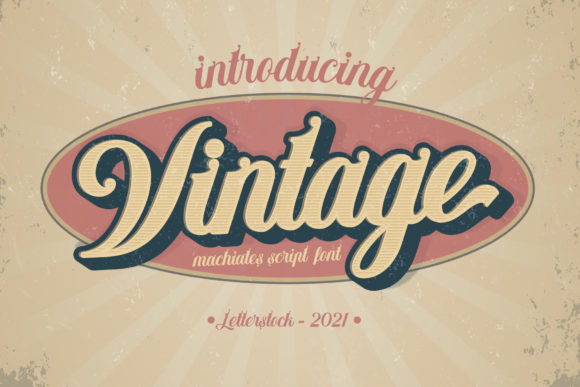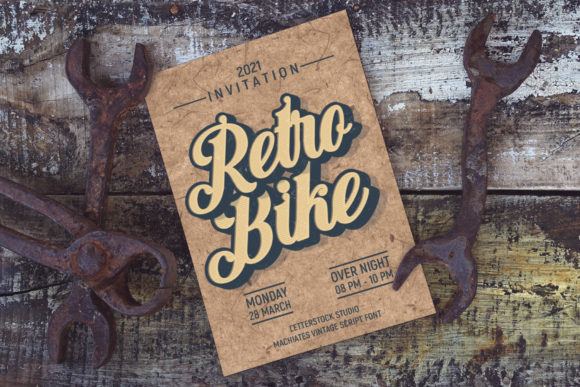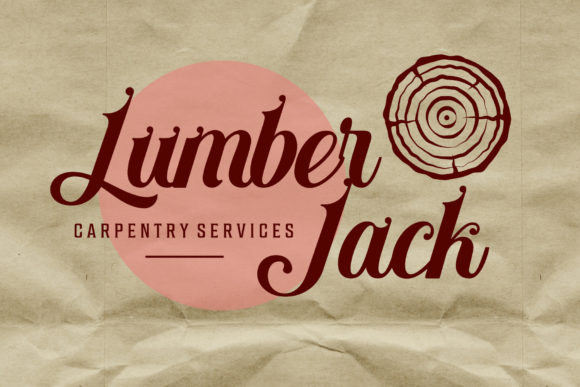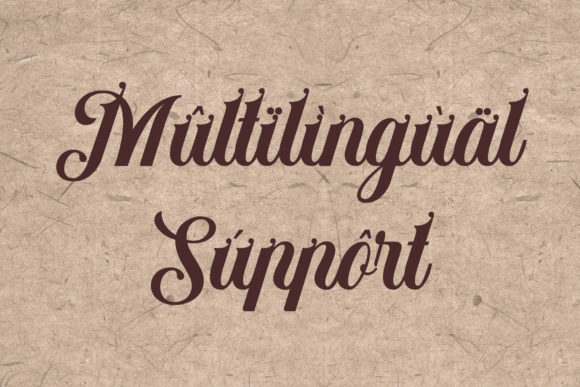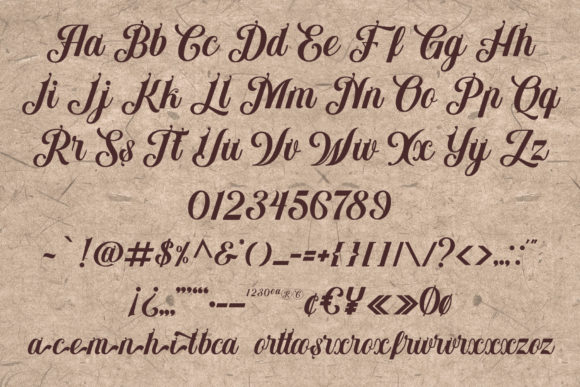
Introduction to Machiates Font
Have you ever been in the middle of a creative project, staring at a blank page, trying to find the perfect font to make your design stand out? It’s a moment we’ve all been there – searching high and low for that elusive combination of style, personality, and flair that sets our work apart.
Enter the Machiates Font, a stunning and bold handwritten font that’s sure to bring a touch of sophistication and nostalgia to your designs. With its high quality aesthetic and transparent background, this font is a game-changer for designers looking to elevate their creative projects.
Whether you’re working on a logo, a headline, or a marketing campaign, the Machiates Font is a valuable design resource that’s sure to add a dynamic touch to your work.
Key Features of Machiates Font
- High-quality font design with a unique, artistic style, perfect for creative projects and design resources.
- Includes a wide range of characters, including uppercase and lowercase letters, numbers, and punctuation marks, making it suitable for a variety of creative projects.
- Unique, hand-drawn style that sets it apart from other fonts, making it a great choice for designers looking for a distinctive design resource.
Honest Review: Machiates Font
Here are some things that work well with the Machiates Font:
- ✨ Elegant and modern design that’s perfect for creative projects
- ✨ Supports multiple languages, making it a versatile design resource
- ⚠️ Limited font sizes and styles, which may not be suitable for complex design projects
- ⚠️ Some users may find the font’s design too minimalist, which may not appeal to those who prefer bolder fonts
Overall, I’d say the Machiates Font is a solid addition to any designer’s toolkit. Its modern design and versatility make it a great choice for creative projects, and the free download is a major bonus. While it may have some limitations, I think it’s definitely worth checking out.
Machiates Font
Machiates Font is a high-quality, free download that offers a unique design element for your creative project. With a transparent background, this font is perfect for adding a touch of elegance to your design.
Tips for Getting the Most Out of Machiates Font
To get the most out of Machiates Font, try using it in combination with other design elements, such as graphics or images.
Experiment with different font sizes and styles to add visual interest to your design.
Common Use Cases for Machiates Font
Machiates Font is perfect for:
Business cards and brochures
Social media graphics and advertisements
Alternatives to Machiates Font